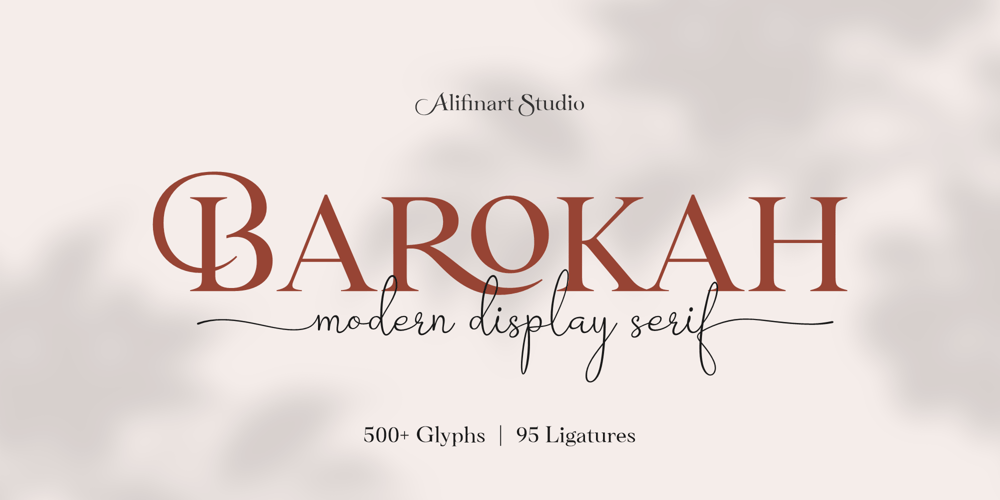
Barokah
Barokah font
Barokah Font Family was designed by Alif Nuryasin and published by Alifinart Studio. Barokah contains 3 styles and family package options. Do you want to create a design with a luxurious and casual style? Barokah Serif Font is the best choice. This is a modern display font has a lot of ligature for uppercase and lowercase. This serif font are perfect for luxury projects and will keep your creativity flowing.Typeface StoryIn 2021, we released Barokah Script and at that time a lot of people loved it. However, we feel that Barokah Script should be combined with a serif font with a luxurious and casual style, so that it will become a popular for everyone.That’s why, today—after 1 year—we are releasing Barokah Serif, as the best match for Barokah Script. Why Barokah Serif Font?Barokah Serif is a font with a myriad of ligatures, both uppercase and lowercase. In this font, there are Stylistic Alternates for each capital letter with an authentic and elegant design.In the lowercase letters you will find an amazing variety of ligatures and in a luxurious style. This will make each of your designs look elegant and classy. For ease of use, we divide it into two; Standard and Discretionary Ligatures.Features:- Uppercase and lowercase letters – Numbers and punctuation – Lots of ligatures for uppercase and lowercase – Stylistic Alternates for each capital letter – True type hinting – MultilingualStandard and Discretionary Ligatures are available for the following letter combinations:LA LI LU LE LO LL RA RI RU RE RO KA KI KU KE KO XA XI XU XE XO ZA ZI ZU ZE ZO RS AS MS KS HS EV EW DO OC OG DG OO OQ TT NN WWW SSTh fi ff ffi fj ffj ft fl ffl fb ffb fh ffh fk ffk ſi ſſ ſſi ſl ſſl ſt ct st tt an ah am ap ar ab en eh em ep er eb cn ch cm cp cr cb un uh um up u rub gi gj ti tti tj ss ri rj wwwLanguage SupportsAfrikaans, Albanian, Asu, Basque, Bemba, Bena, Breton, Catalan, Chiga, Colognian, Cornish, Croatian, Czech, Danish, Dutch, Embu, English, Esperanto, Estonian, Faroese, Filipino, Finnish, French, Friulian, Galician, German, Gusii, Hungarian, Indonesian, Irish, Italian, Kabuverdianu, Kalaallisut, Kalenjin, Kamba, Kikuyu, Kinyarwanda, Latvian, Lithuanian, Lower Sorbian, Luo, Luxembourgish, Luyia, Machame, Makhuwa-Meetto, Makonde, Malagasy, Maltese, Manx, Meru, Morisyen, North Ndebele, Norwegian Bokmål, Norwegian Nynorsk, Nyankole, Oromo, Polish, Portuguese, Quechua, Romanian, Romansh, Rombo, Rundi, Rwa, Samburu, Sango, Sangu, Scottish Gaelic, Sena, Serbian, Shambala, Shona, Slovak, Soga, Somali, Spanish, Swahili, Swedish, Swiss German, Taita, Teso, Turkish, Upper Sorbian, Uzbek (Latin), Volapük, Vunjo, Walser, ZuluSuggested Uses Perfect for branding projects, logo or logotype, promotion, book cover, invitation, letterhead, website, and more.ConclusionBarokah Serif is a luxurious authentic font and a must-have in your font collection. Get the Barokah Serif Font now…———————————–Alifinart Studioalifinart@gmail.comInstagram | Behance